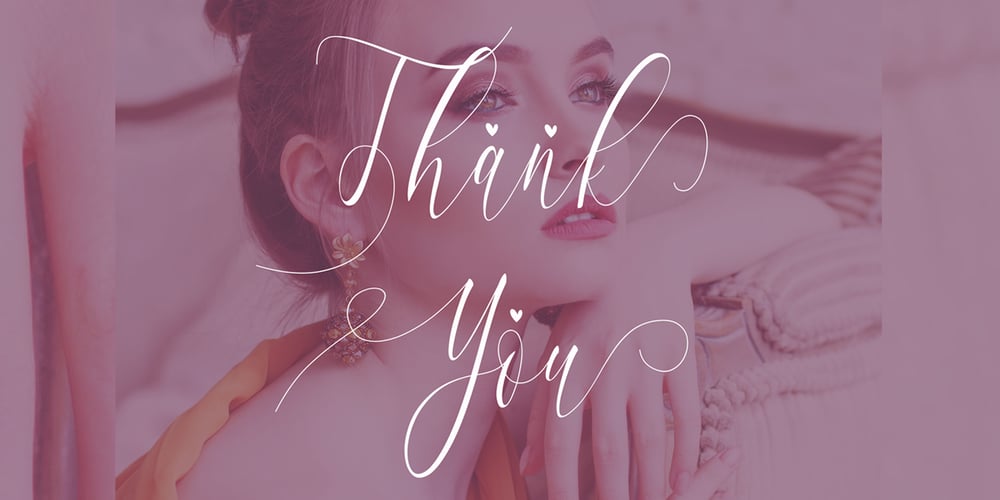
Maharlotte Font Family was designed by Alde Saputro and published by Aldedesign. Maharlotte contains 1 styles and family package options. Maharlotte Calligraphy is an elegant font with heart touch and warm desire. For those of you who are need a touch of elegance and modernity for your designs or branding, this font was created for you! Maharlotte was built with OpenType features and includes stylistic set alternate and some quirky ligatures. And there is ending swashes, numbers, punctuation, and it also supports other languages. This font is PUA encoded = Accessible in the Adobe Illustrator, Adobe Photoshop, Adobe InDesign, even work on Microsoft Word. PUA Encoded Characters – Fully accessible without additional design software.